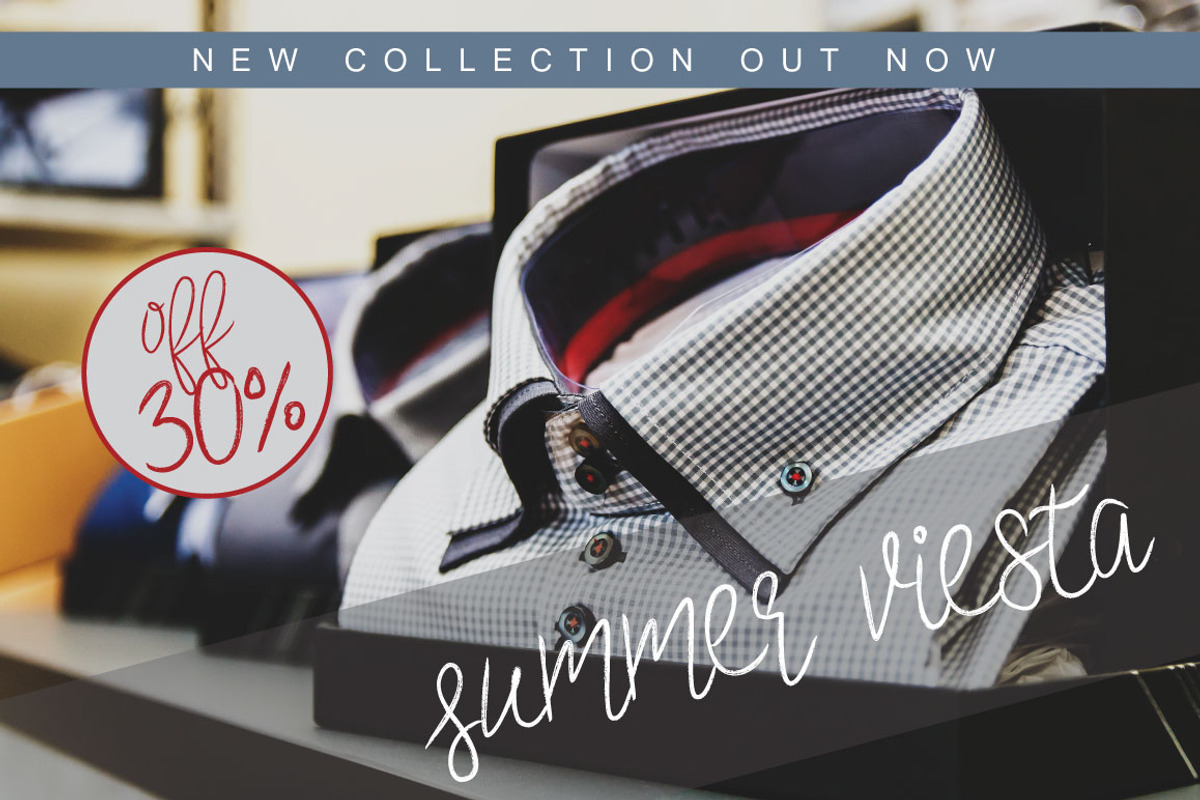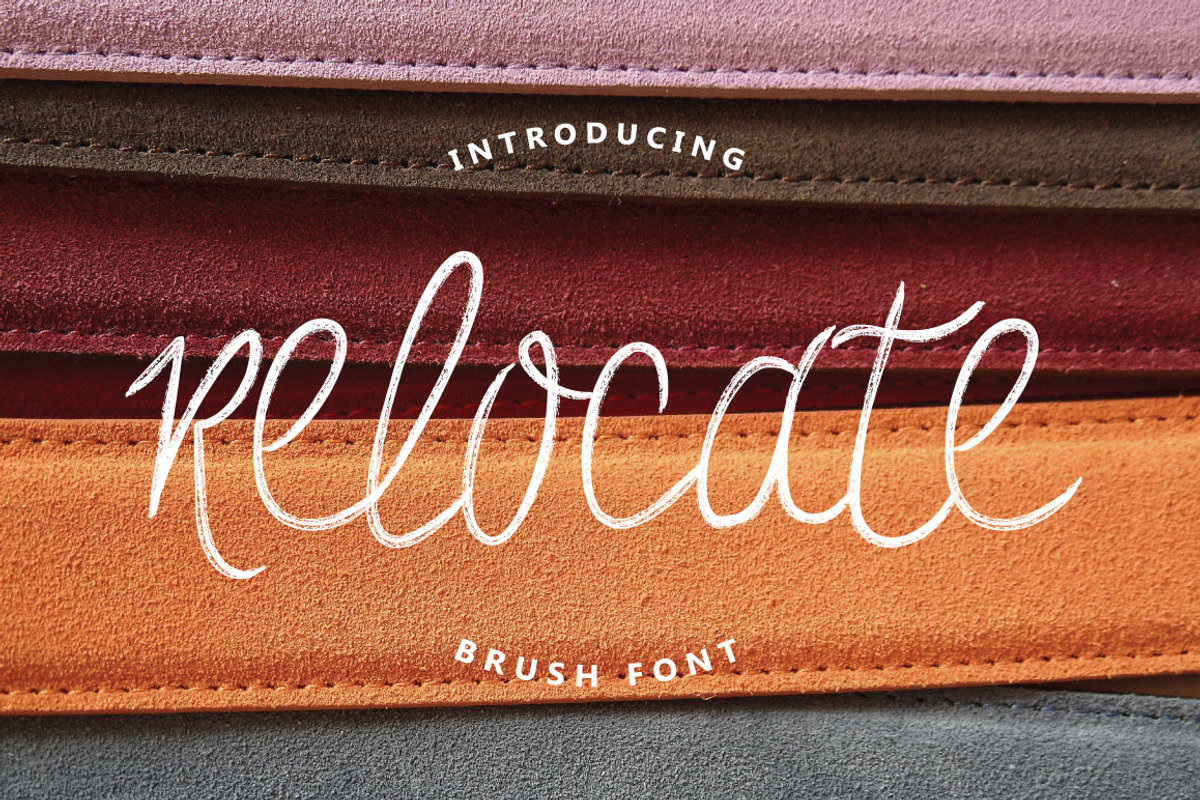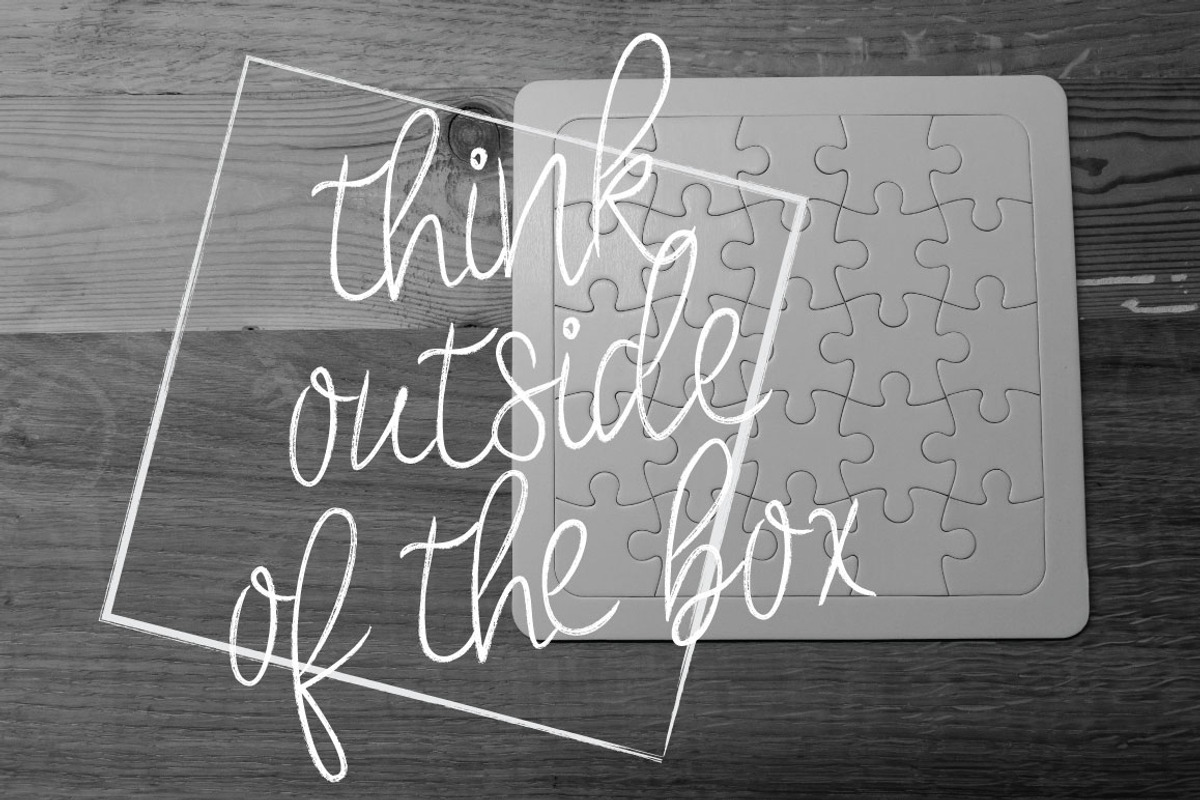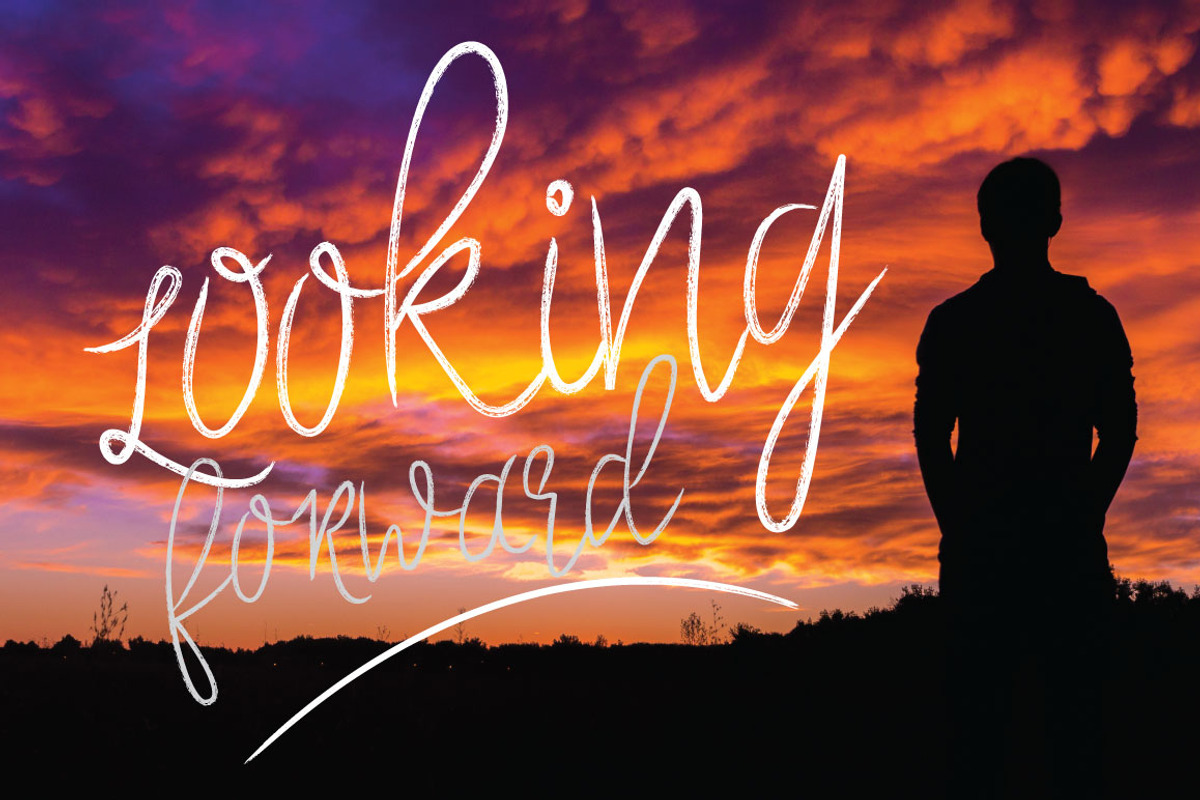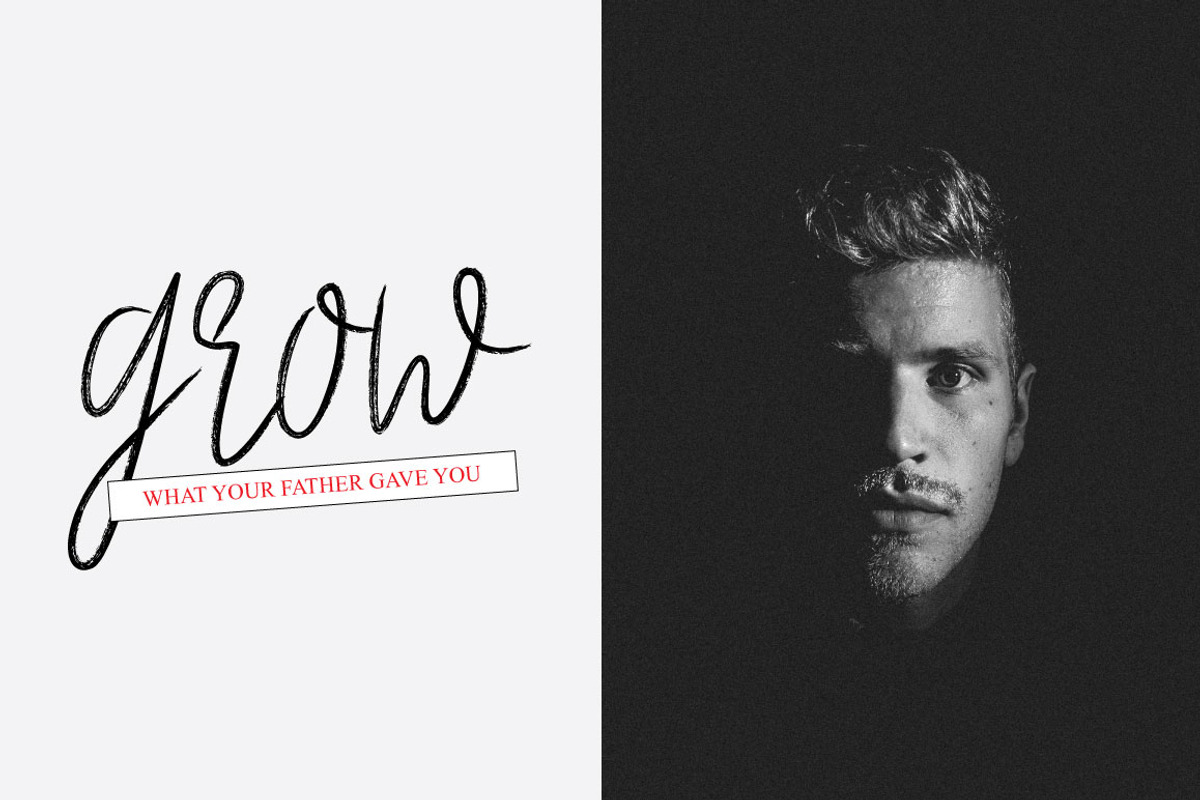
Relocate Brush Typeface
Relocate is a unique brush font which extraordinary since it has same size between uppercase and lowercase characters. Balancing between scratch and rush style to help you create the look of odd custom hand-lettering. Relocate is just what you've been looking for!
Use Relocate on all of your projects to give it an inconsistent hand brushed font. In particular would look great on branding projects, logos, product packaging, posters, invitations, greeting cards, titles, blogs, everything that includes personal magnetism and you name it. ;)